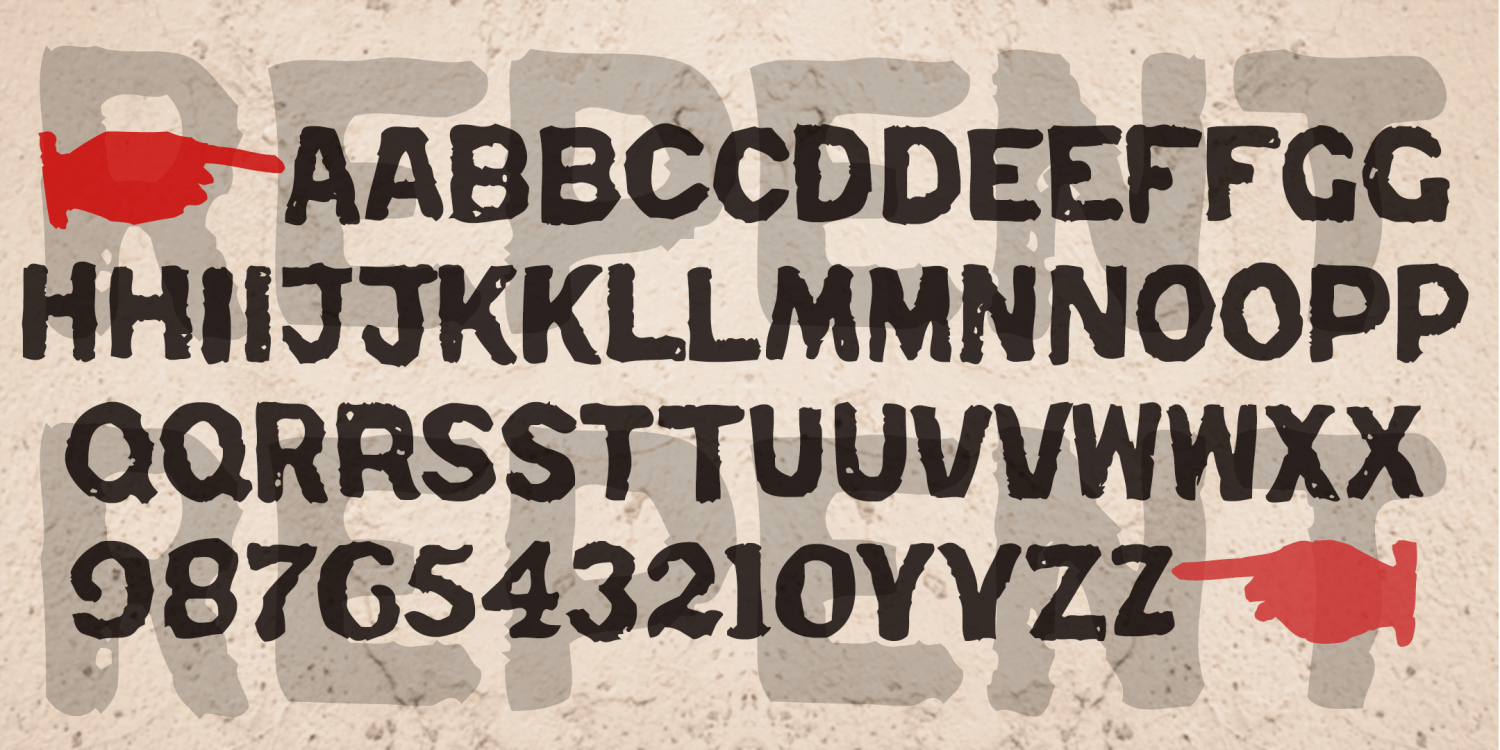
Repent
About Repent
REPENT is a bold and rustic font. It was inspired by the work of Jesse Howard (1885-1983), a folk/outsider/naive artist. What is striking to me about Howard's work is the intense effort contained in his paintings-as-rants, and the overall texture…